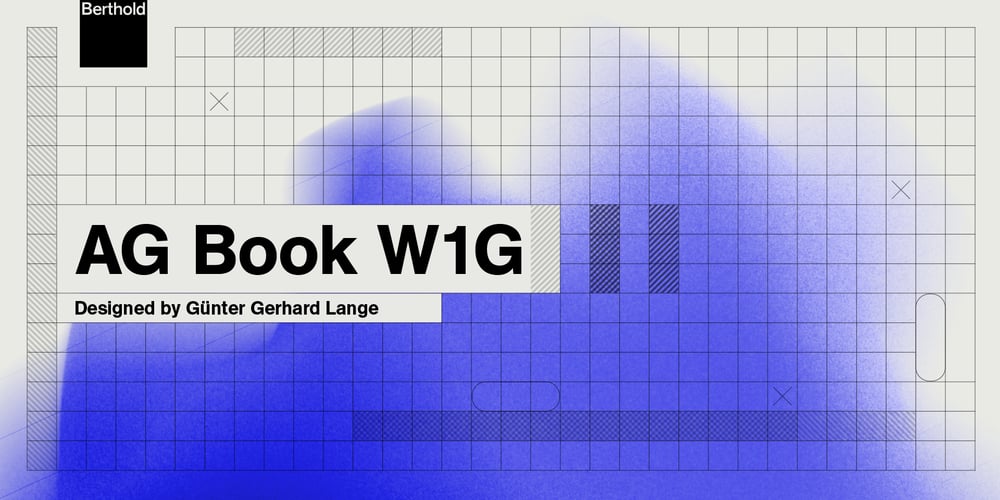
AG Book W1G Font Family was designed by Günter Gerhard Lange and published by Berthold. AG Book W1G contains 56 styles and family package options. AG Book by Günter Gerhard Lange modified the original design concept of the classic Akzidenz-Grotesk family between 1969 and 1973, to position it more closely to the competing Helvetica family. Today this font family comes in 28 styles spanning three widths, all with support for Cyrillic and Greek for greater international utility. Small capitals offer nuanced typographical options in all but the italic Condensed and Extended styles.